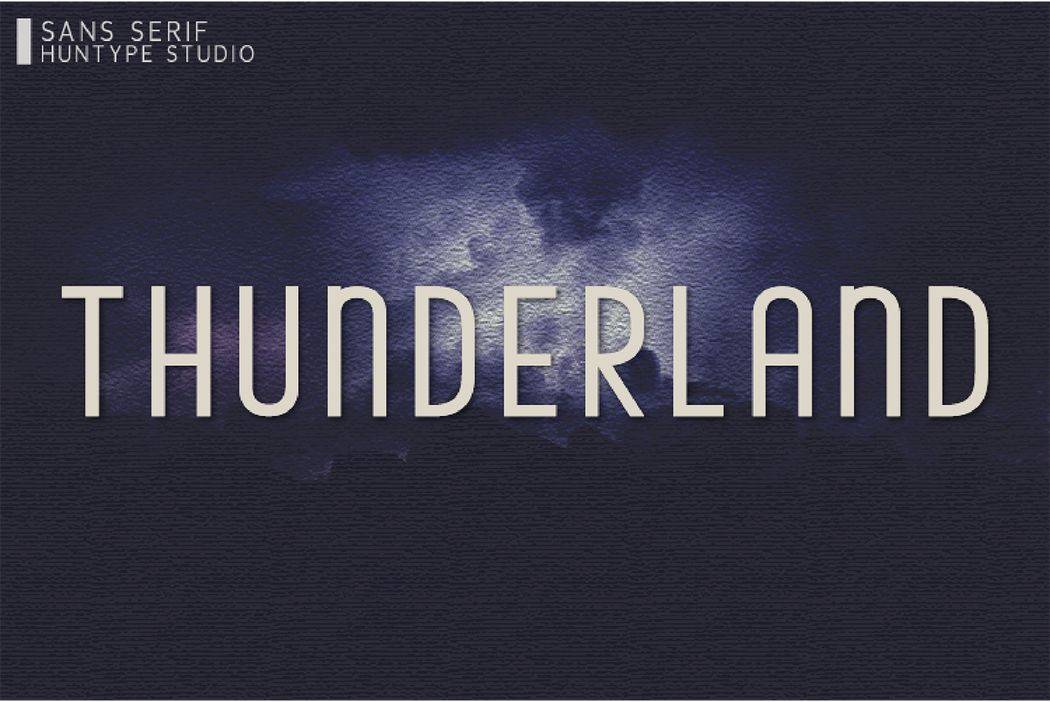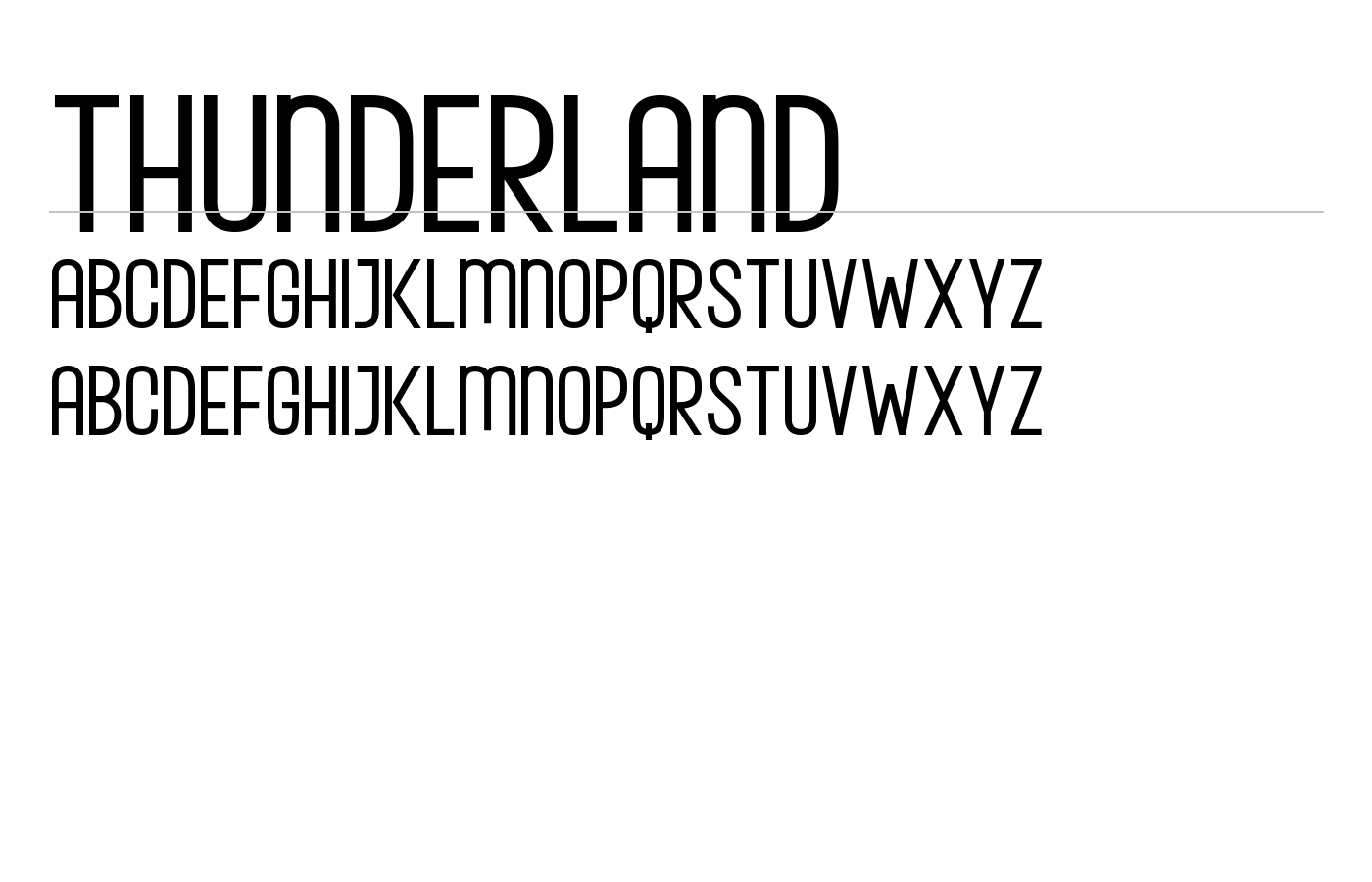
Thunderland is a tall, narrow sans-serif font with a clean and modern look, characterized by its consistent, thin strokes and high x-height that give it an elegant yet slightly futuristic feel. Its condensed width and uniform stroke weight make it ideal for striking headlines and display use where space is limited but impact is needed. This font works well in branding, posters, and editorial design where a sleek, sophisticated style is desired.
Thunderland Font
About Thunderland Font